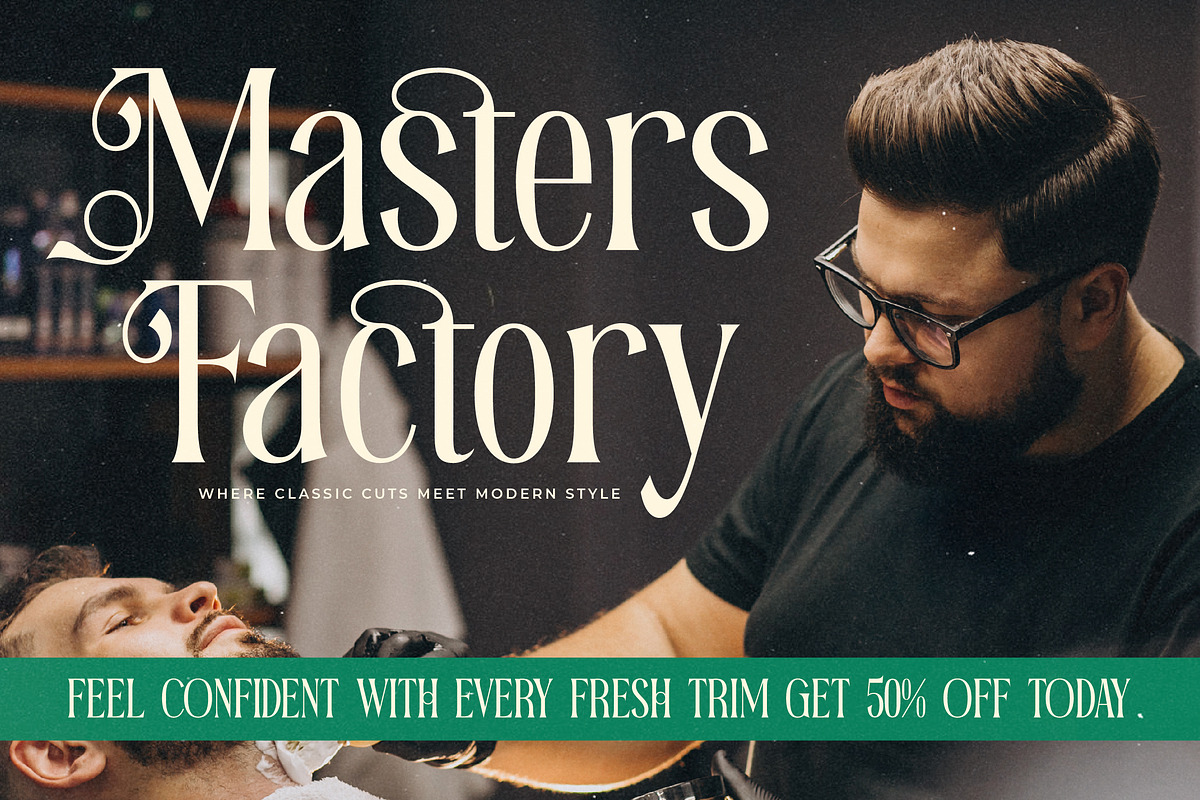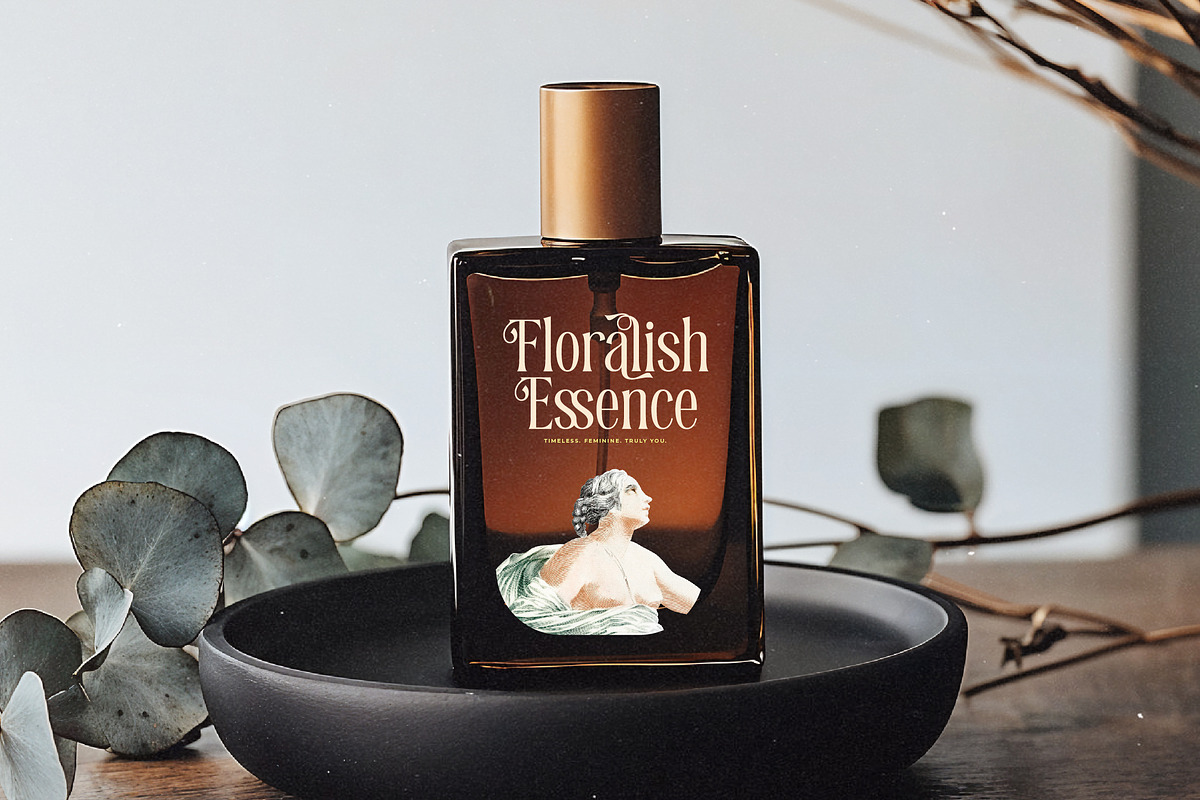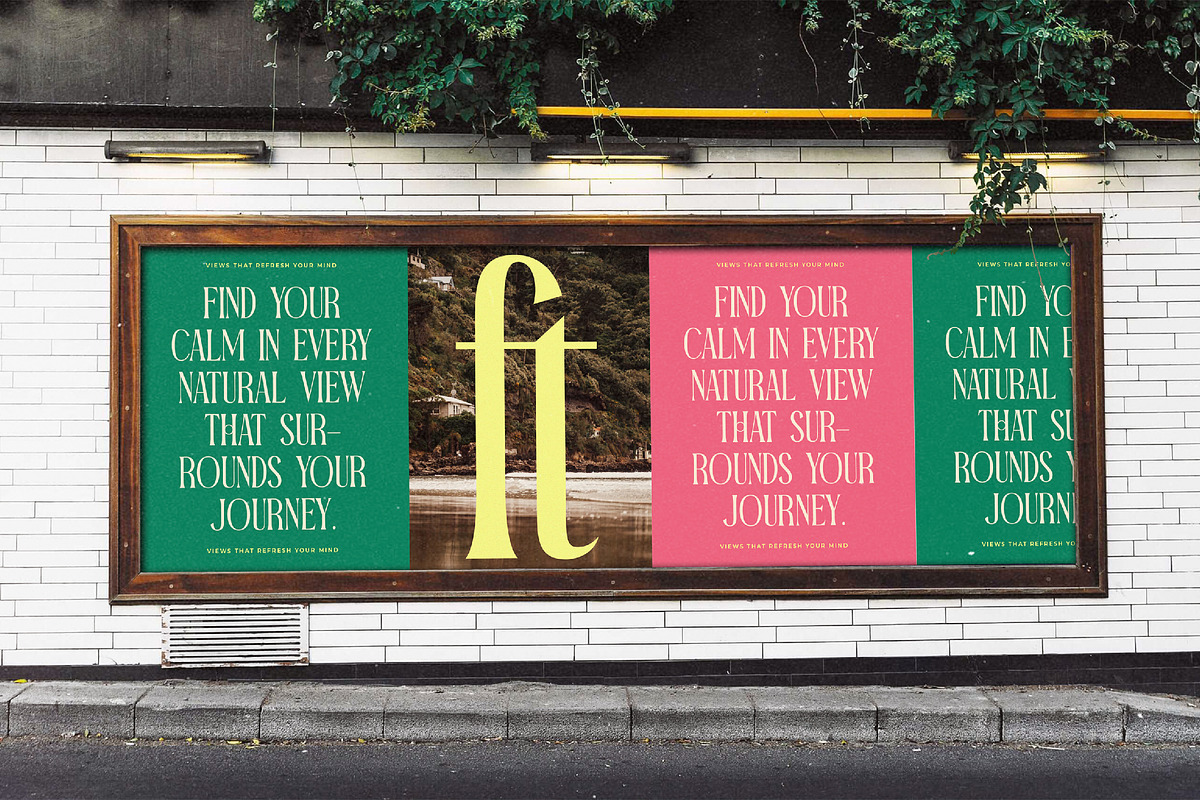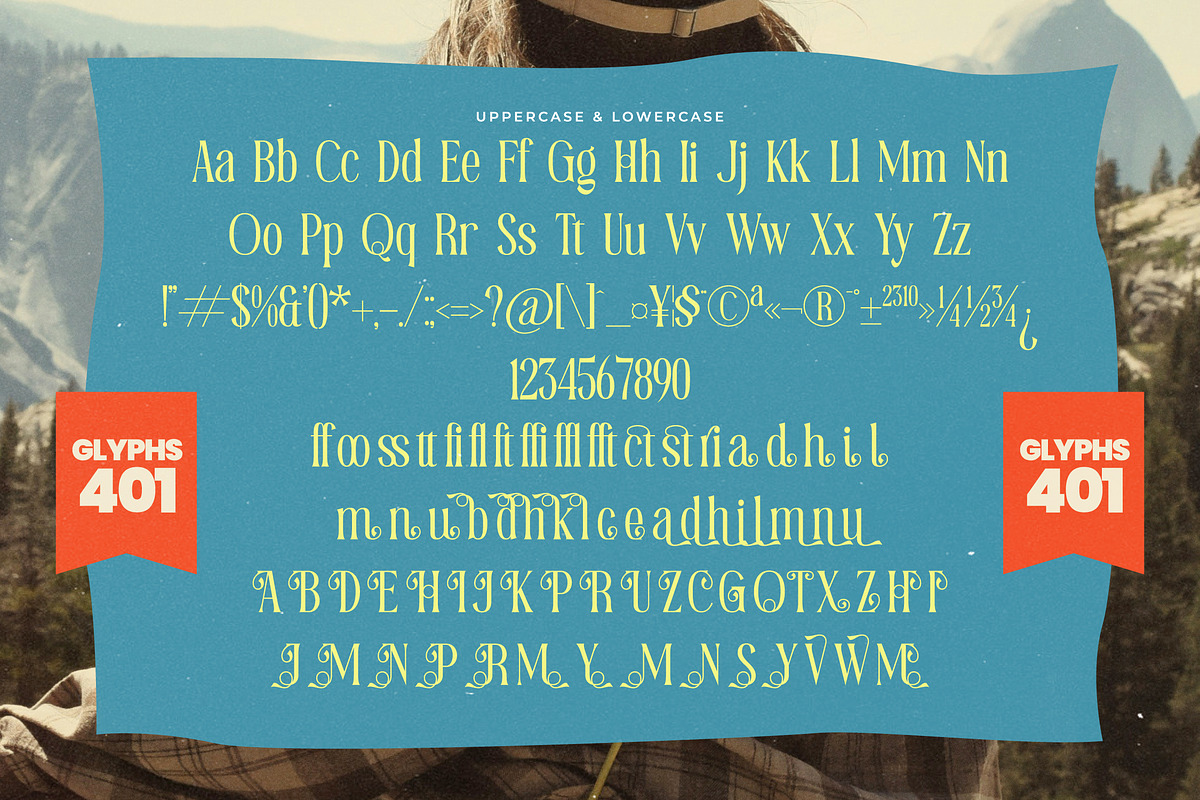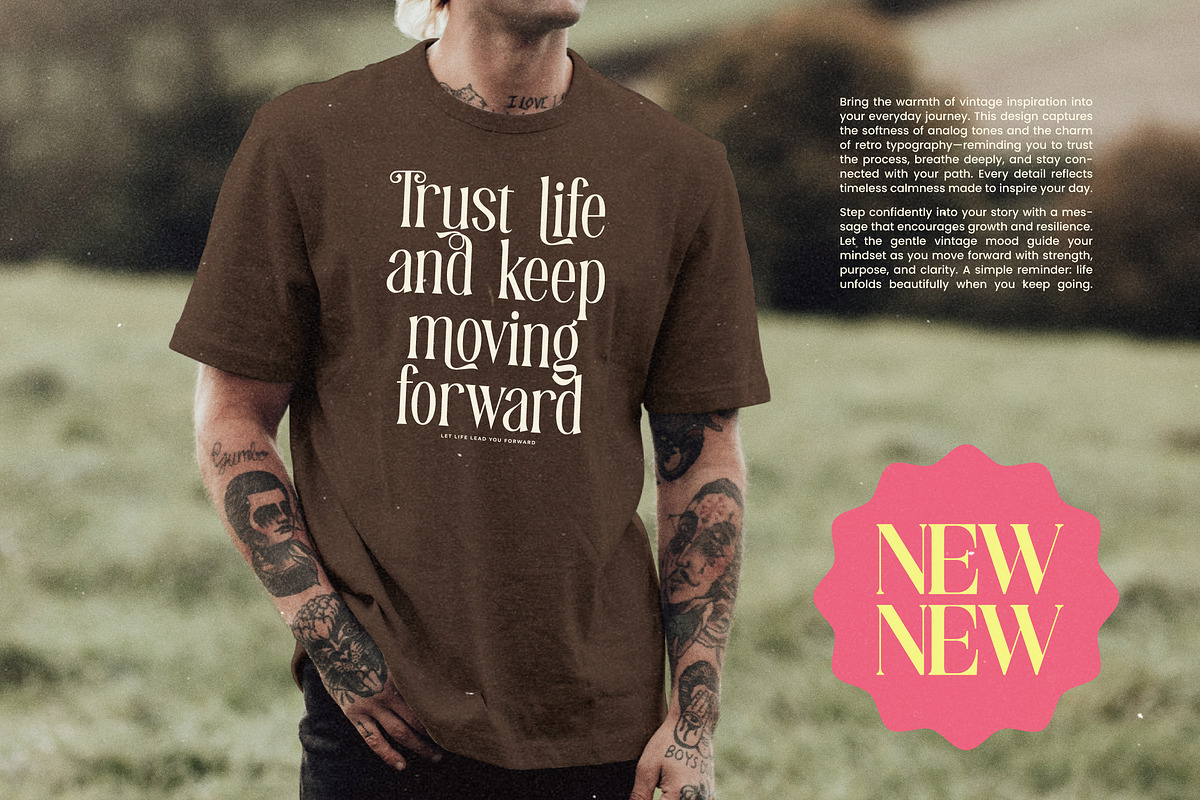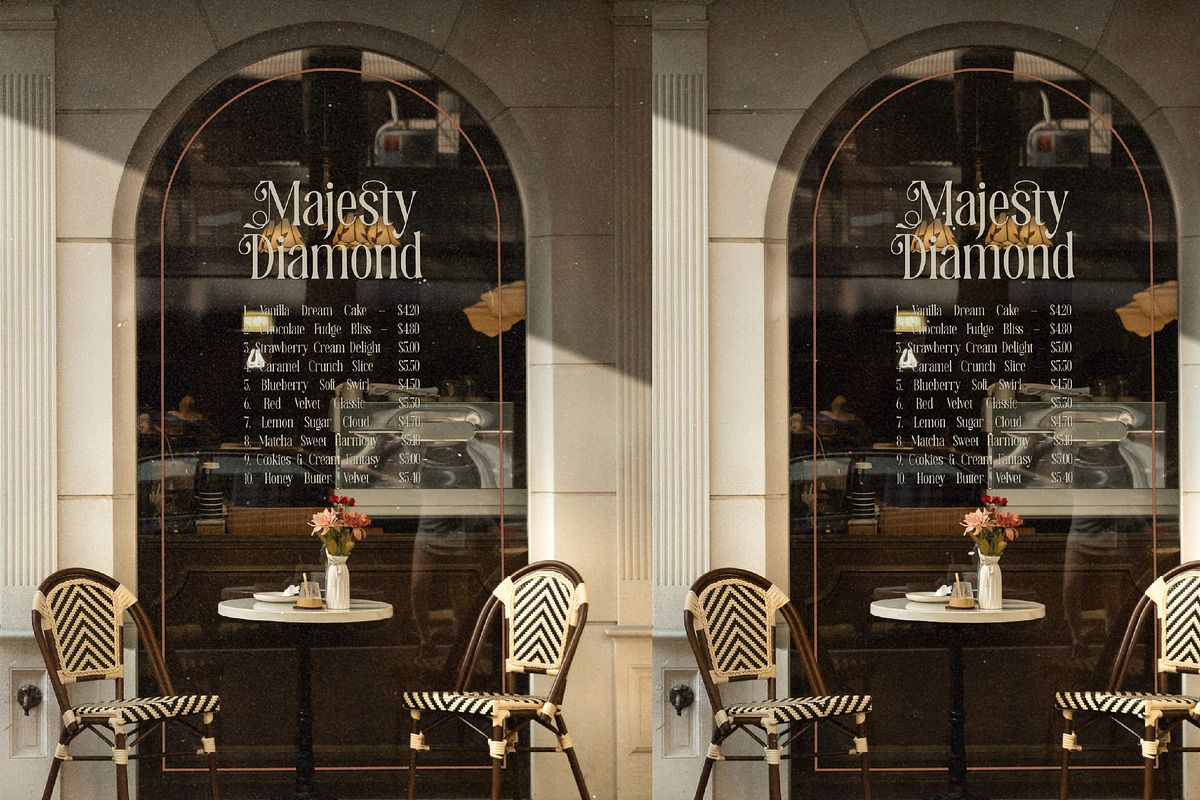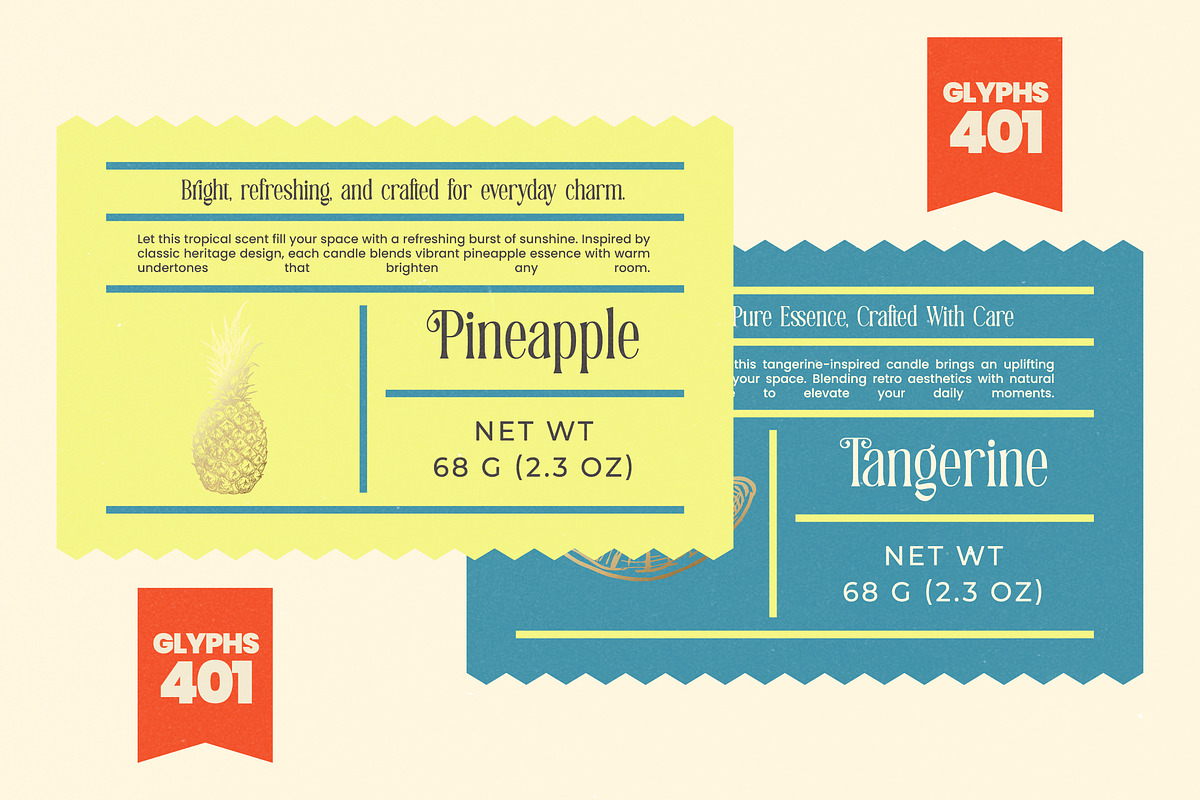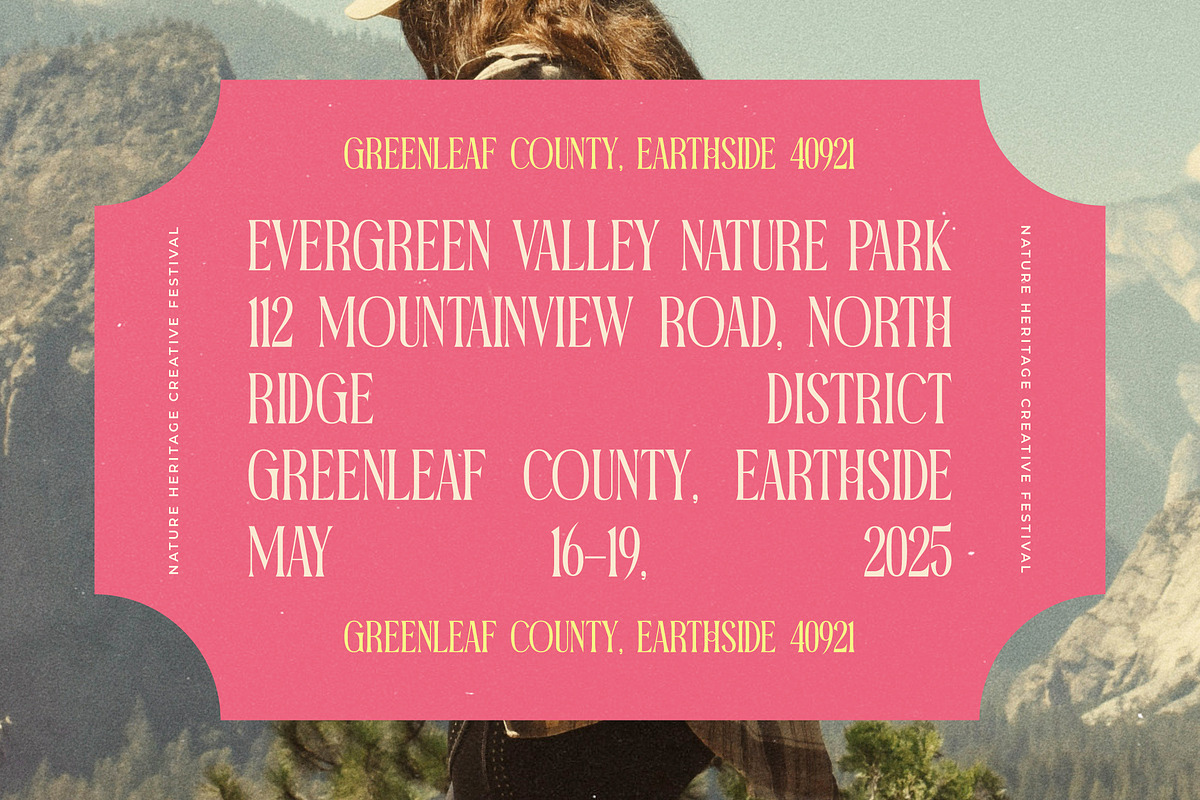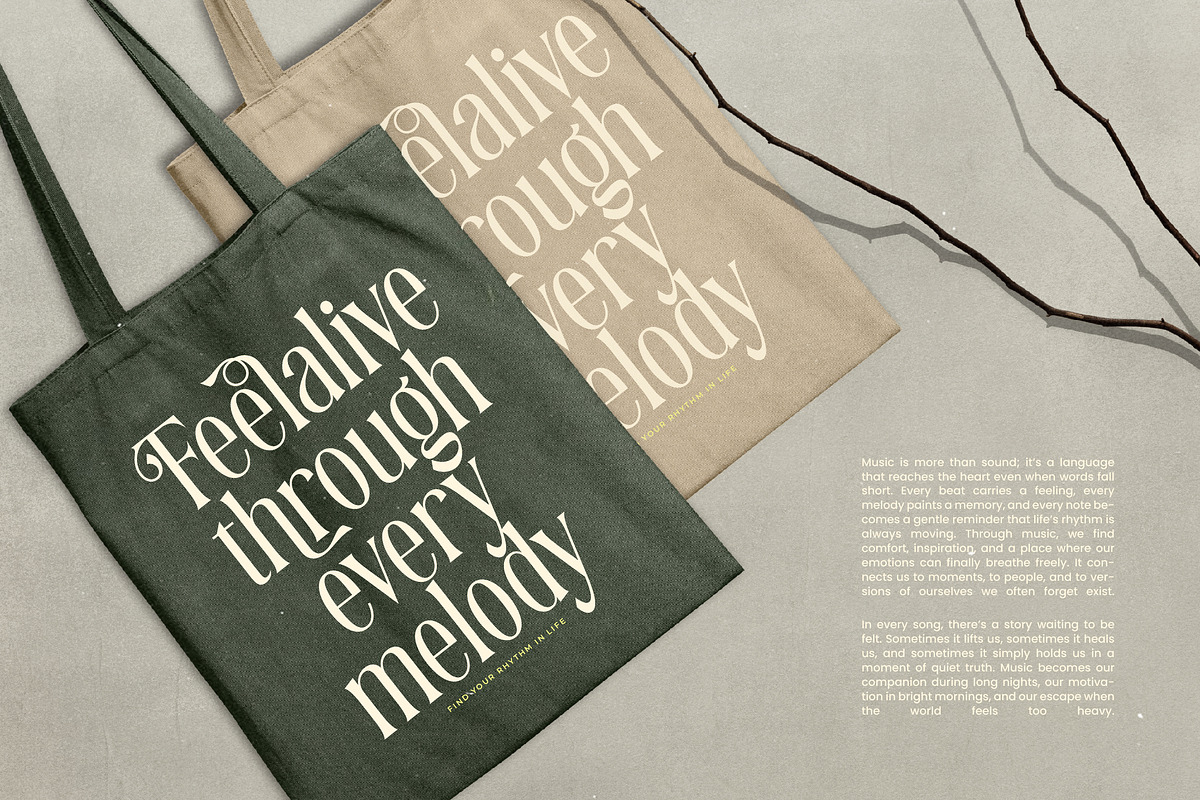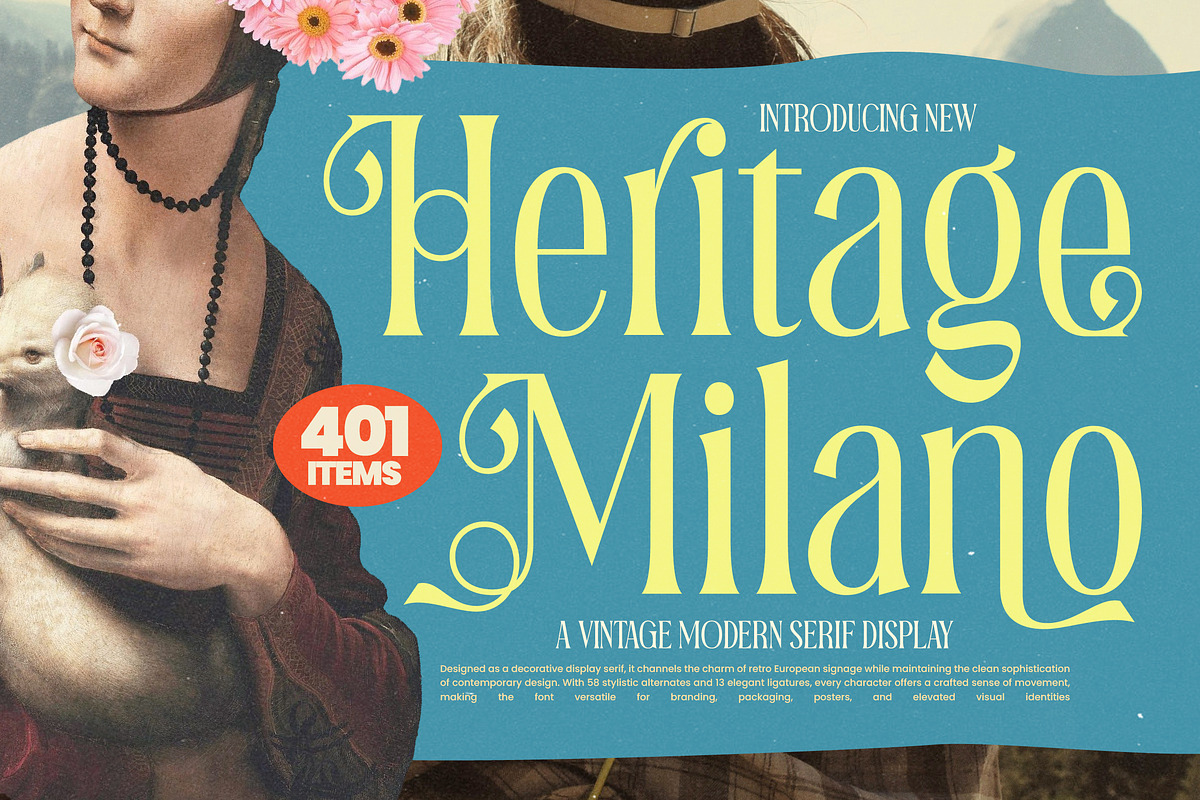
Heritage Milano Vintage Serif
Step into a world where timeless elegance meets contemporary flair with the stunning Heritage Milano. This font captures the essence of sophisticated design, making every word feel like a curated piece of art.
Inspired by the charm of retro European signage and the refined lines of mid-century typography, this typeface bridges the gap between the past and the present. It evokes the atmosphere of a high-end Italian boutique, blending historical richness with a fresh, airy perspective.
This modern serif display is defined by its dramatic thick-and-thin strokes, offering a luxury typography experience that demands attention. Its high-contrast serif structures ensure a strong branding impact, making it an essential editorial font for creators who value grace and power.
Perfectly aligned with the current modern serif trend, this typeface brings a unique personality to the digital landscape. It caters to the growing demand for editorial display fonts and character-driven typography that breaks away from the generic, providing a bespoke feel to any layout.
From high-end logo design to immersive branding projects, this font excels in diverse environments. It is the perfect choice for editorial layouts, luxury packaging, romantic wedding stationery, and cutting-edge fashion lookbooks.
With over 401 glyphs, this collection includes a vast array of ligatures and alternates that allow for endless customization. The inclusion of decorative swashes and full multilingual support ensures that these international characters can serve a global audience with ease.